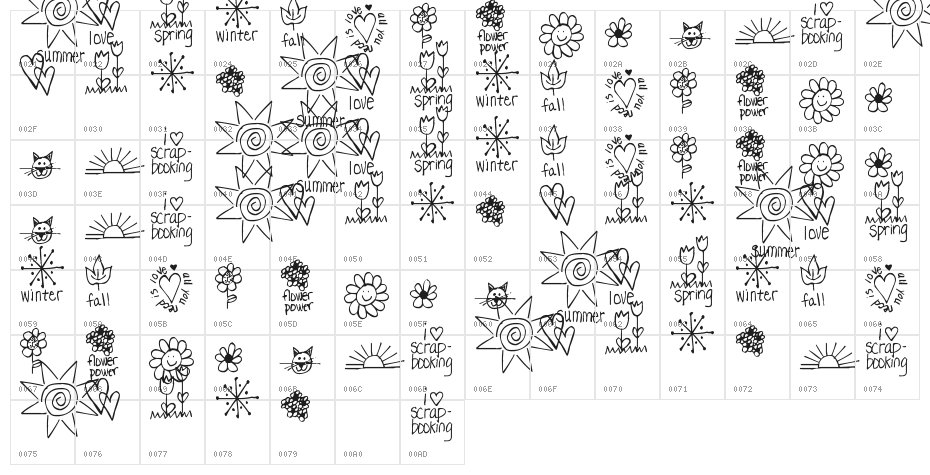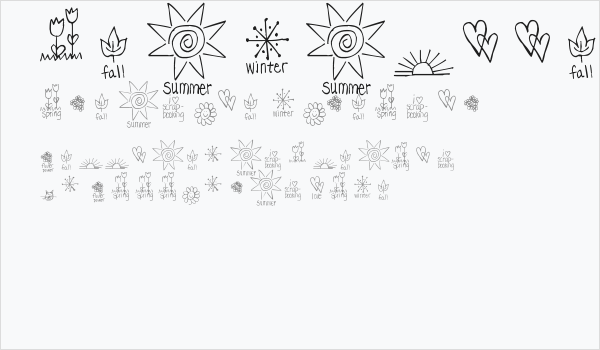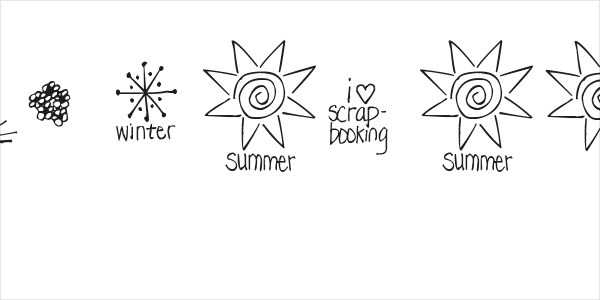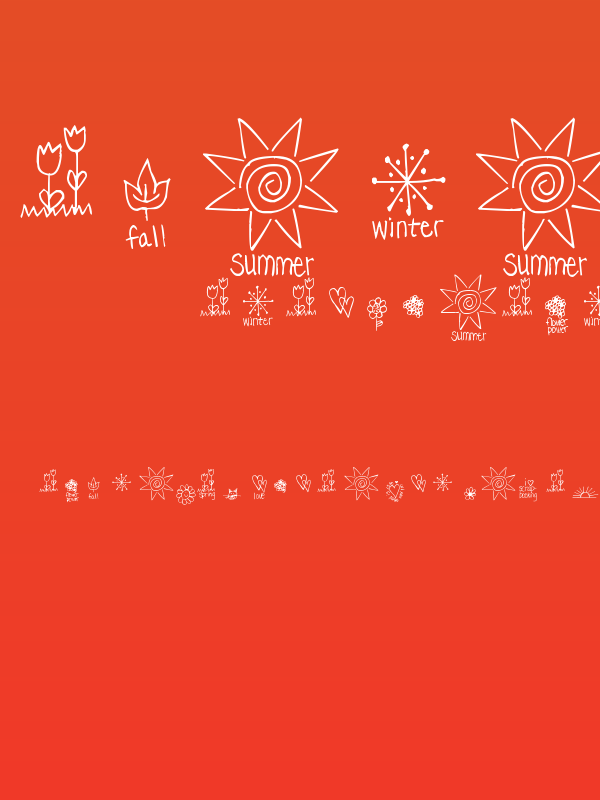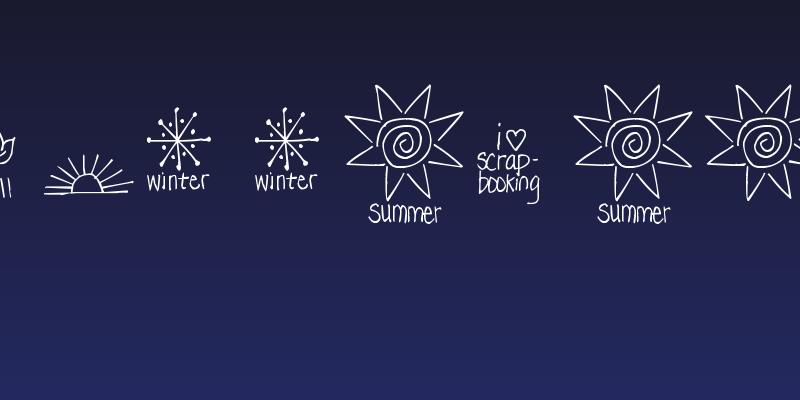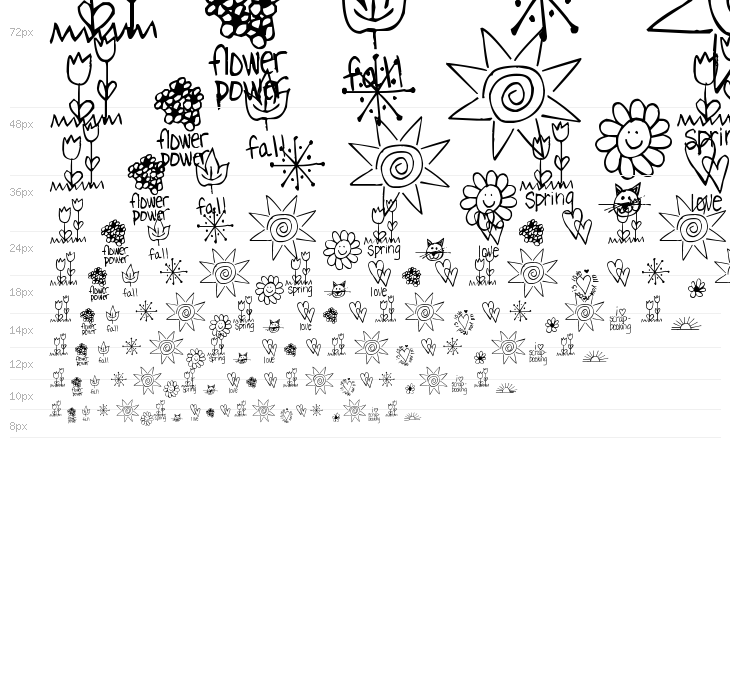
Pea Dalovely Damanda Doodles Font
Pea Dalovely Damanda Doodles Description
This font is a playful and whimsical collection of doodles and hand-drawn elements. It features a variety of seasonal and thematic illustrations such as suns, hearts, flowers, and phrases like 'summer', 'love', 'spring', 'winter', and 'fall'. The style is casual and fun, with a hand-crafted feel that adds a personal touch to any project. The doodles are simple yet expressive, making them suitable for creative and informal designs. This font is perfect for scrapbooking, DIY projects, and any design that requires a touch of charm and personality.
| Overall Style | Whimsical, Playful, Hand-drawn |
| Use Case | Decorative elements, Scrapbooking, Creative projects |
| Proposed Projects | Ideal for scrapbooking, greeting cards, DIY crafts, and playful design projects. |